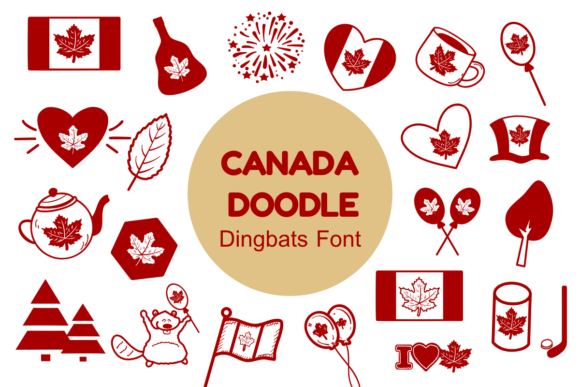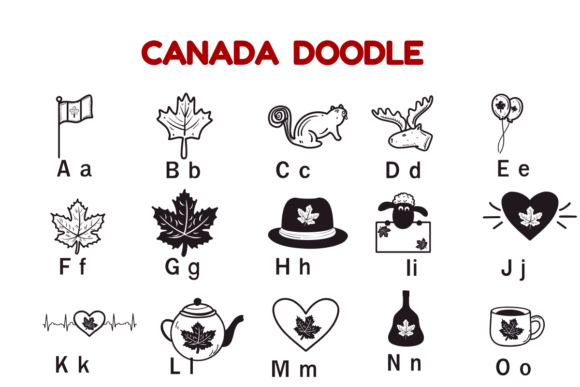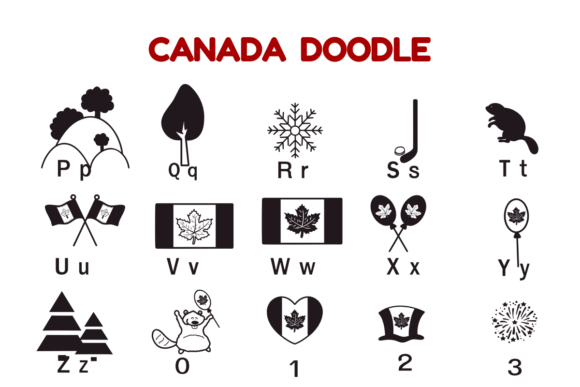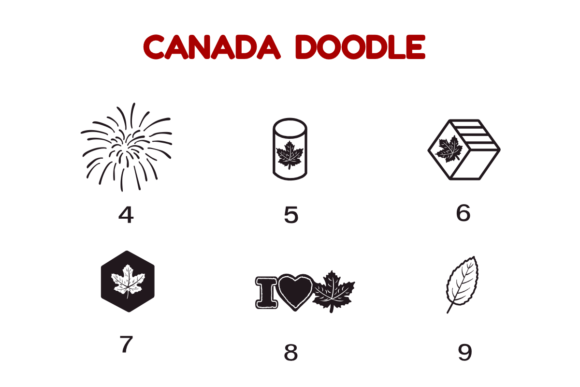
Canada Doodle Font
About the Canada Doodle Font
Add a touch of class to your work with the Canada Doodle Font, a truly exceptional typeface. Canada Doodle is a fancy font filled with Canadian symbols like maple leaves. Each letter is designed with a unique Canadian touch, making it perfect for fun and patriotic projects.
Canada Doodle thrives in headline applications, logos for tourism-related businesses, or packaging for Canadian-themed products. Its playful nature also makes it suitable for short, impactful social media graphics or posters for events celebrating Canadian culture. However, avoid using it for body text or lengthy paragraphs; its highly decorative style hinders readability in extended use.
This font’s personality is undeniably cheerful and patriotic. It projects a friendly, approachable feel, ideal for brands aiming for a lighthearted, nationalistic image. Consider pairing Canada Doodle with a clean sans-serif like Open Sans for contrast, or a more traditional serif font like Garamond for a sophisticated yet playful combination. A simple, geometric sans-serif could also work well to provide a modern counterpoint.
For a more playful approach, explore pairing it with a handwritten script font, but ensure the script remains legible to avoid visual clutter. The key is to balance Canada Doodle’s whimsical energy with a typeface that ensures clear communication.
Canada Doodle Font Usage Examples
Canada Doodle Font Example